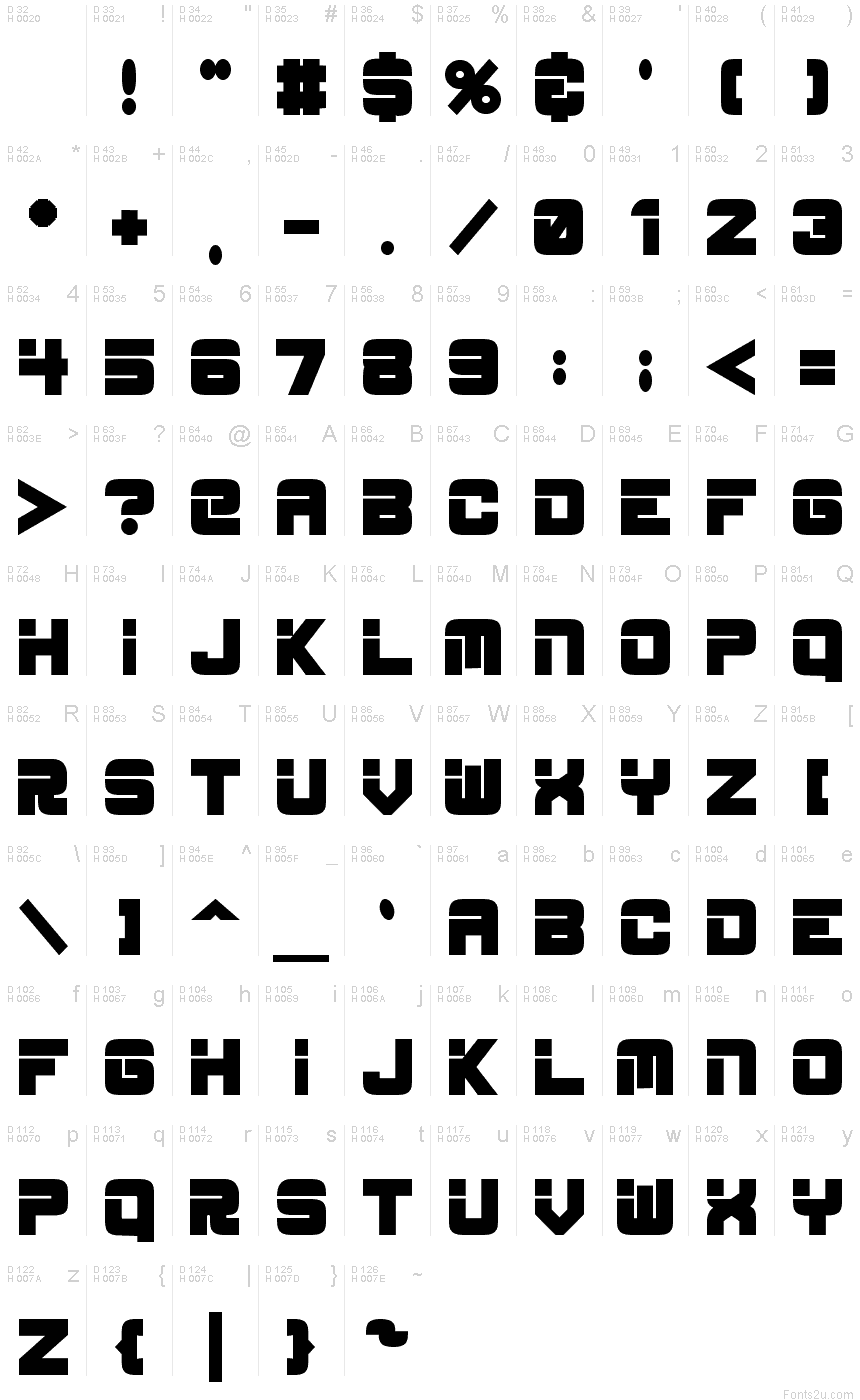
ESP_Bold
ESP Bold font by Tony Lynch is a free futuristic display typeface with a thick, almost block-like presence and smooth, rounded corners. Its letters feel carved from a single slab, then sliced with sharp horizontal cuts that create a sleek, digital rhythm. The tight spacing and consistent, modular forms give every word a compact, pressurized energy that jumps off the screen.
Using ESP Bold, your titles instantly read as techy, aggressive, and forward‑driven-great for esports branding, gaming logos, sci‑fi posters, tech event graphics, YouTube thumbnails, and bold album covers. This free font shines at large sizes where those chunky shapes and cuts stay crisp; pair it with a clean geometric sans for smaller text to keep your layouts readable and cohesive.